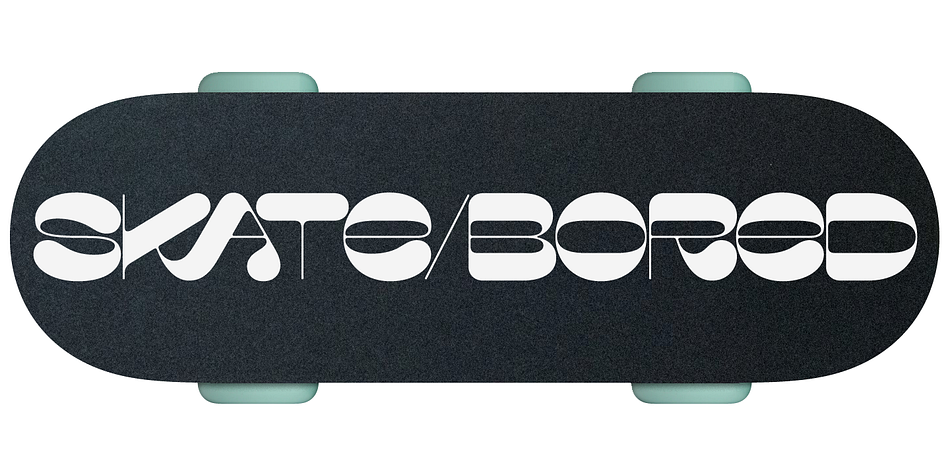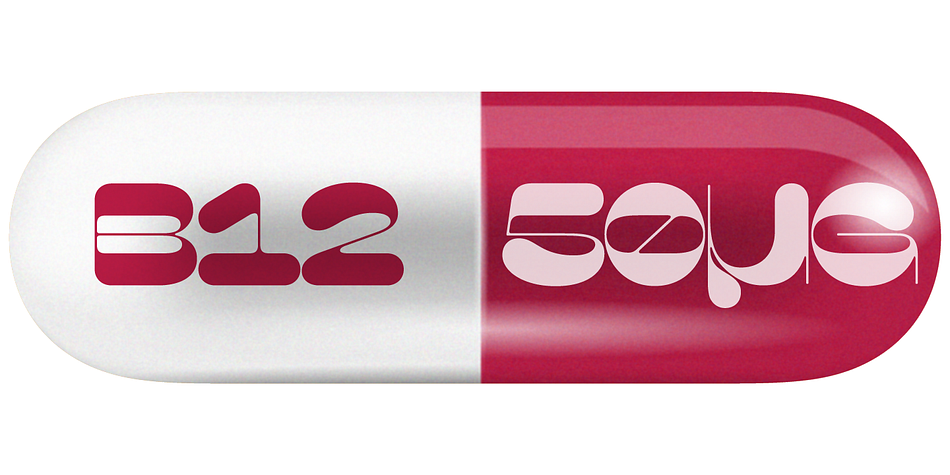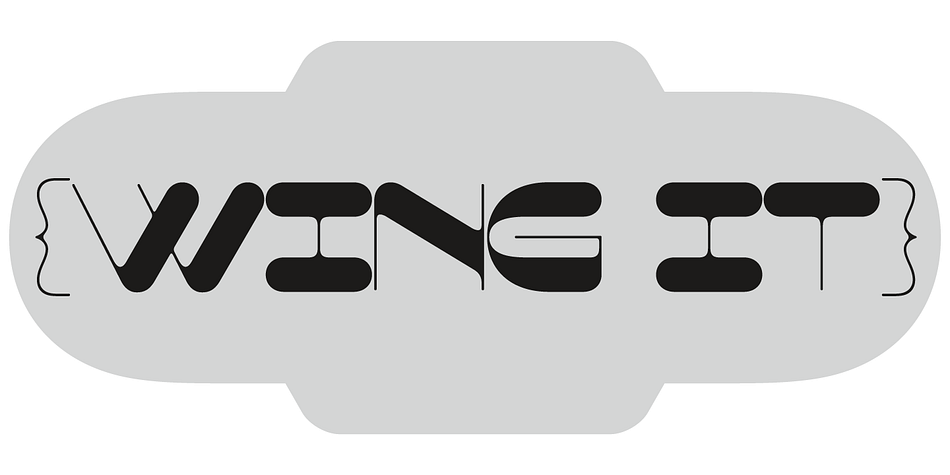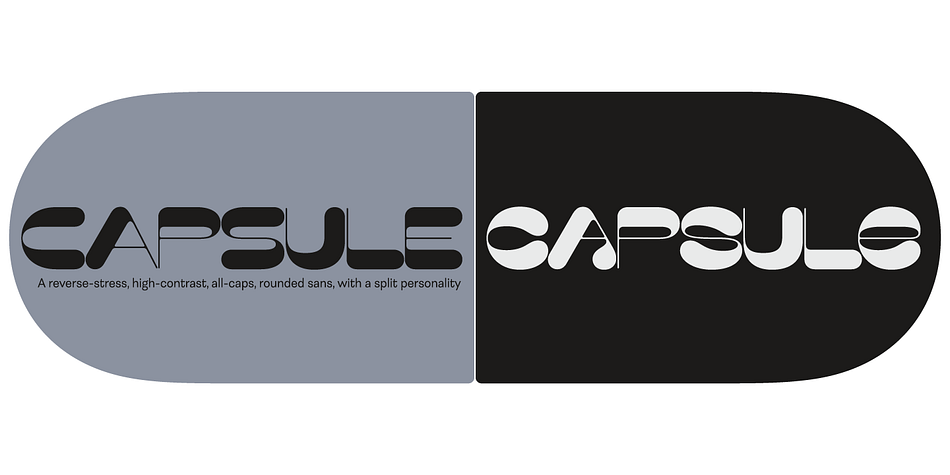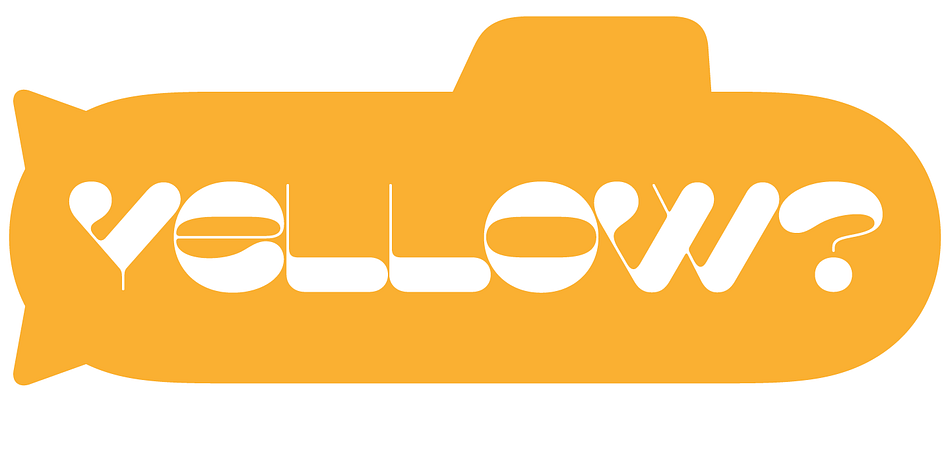
Capsule
Designed by Dave Rowland, Capsule is a display sans and sans serif font published by Schizotype Fonts.
Capsule is a reverse-stress, high-contrast, rounded sans-serif font with two distinct personalities. An all-caps face, there are however variations of some letters in the lowercase slots. The lowercase variants are more playful, with more bulbous elements that riff on phototype faces like Amelia and Data 70, but all can work together and be mixed and matched to your heart’s content. Capsule boasts a bunch of esoteric discretionary ligatures to play around with, and stylistic alternates for 4, 7 and £. The language support is extensive enough to set essays in most Latin-based languages, even though that’s the last thing you should be doing with this font!
Capsule should be set large. The fit is tight and the kerning is aggressive. It’s not what you’d call a workhorse, but Capsule is an All-Caps you’ll (see what I did there?!) want to use for impactful headlines, cutting edge logos and post-modern layouts.